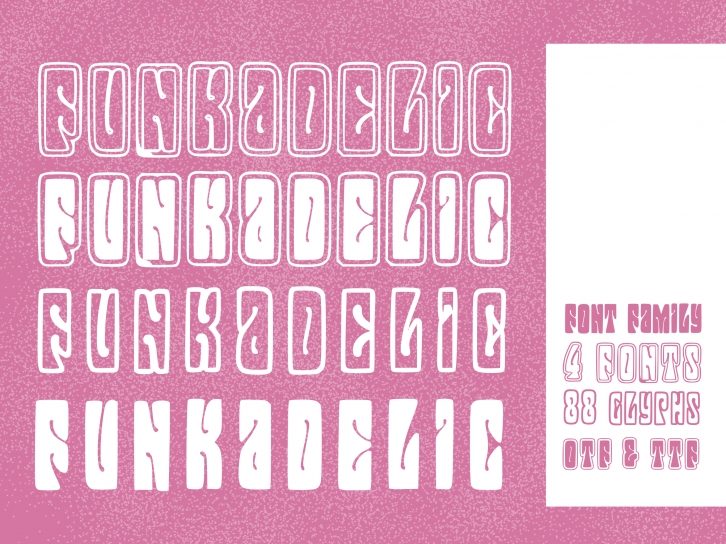
Funkadelic is a retro display font family consisting of four typefaces. Each version consists of 88 glyphs with full English Language character support and unique, funky vibes.